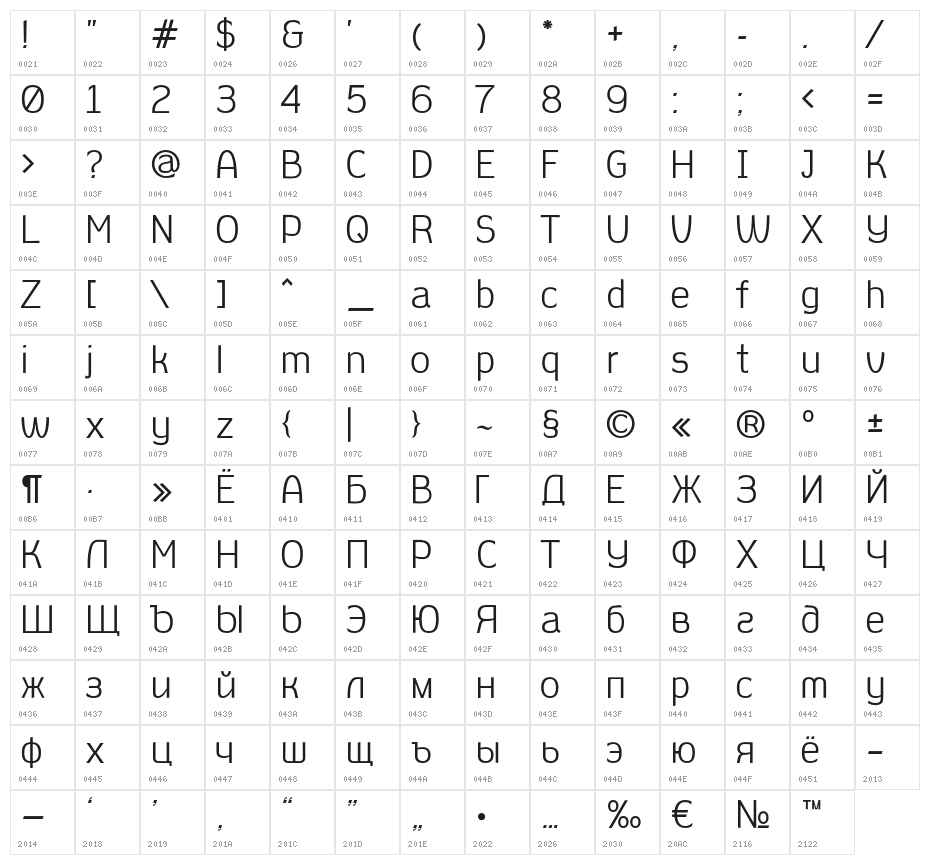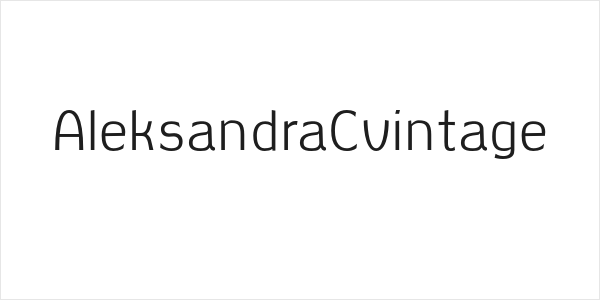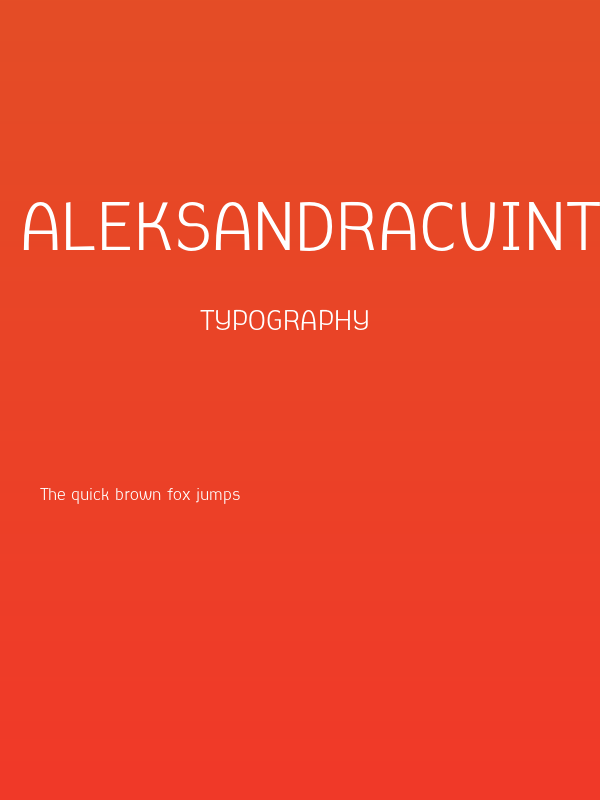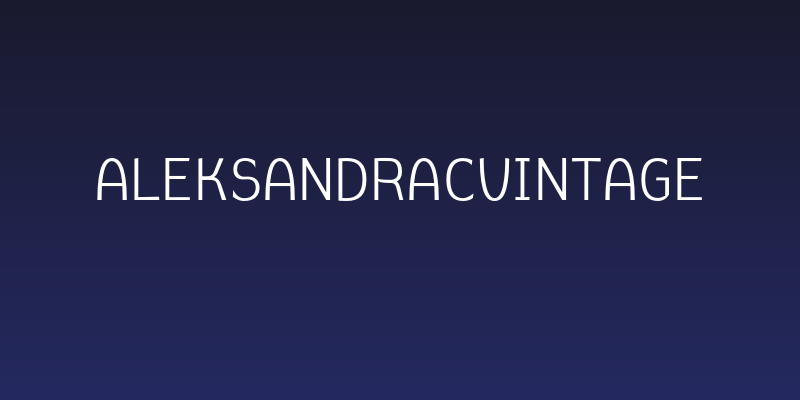
AleksandraCvintage Font
AleksandraCvintage Description
This font features a clean and modern sans-serif design with a geometric structure. The characters are evenly spaced, providing a balanced and harmonious appearance. The uppercase letters are slightly taller than the lowercase, offering a clear distinction between the two. The numerals are consistent in height with the uppercase letters, ensuring readability. Special characters are designed to complement the overall style, maintaining the font's sleek and contemporary look. The strokes are uniform in thickness, contributing to a low contrast appearance that enhances legibility across various sizes.
| Proposed Projects | Ideal for digital interfaces, branding, advertising, and editorial design. |